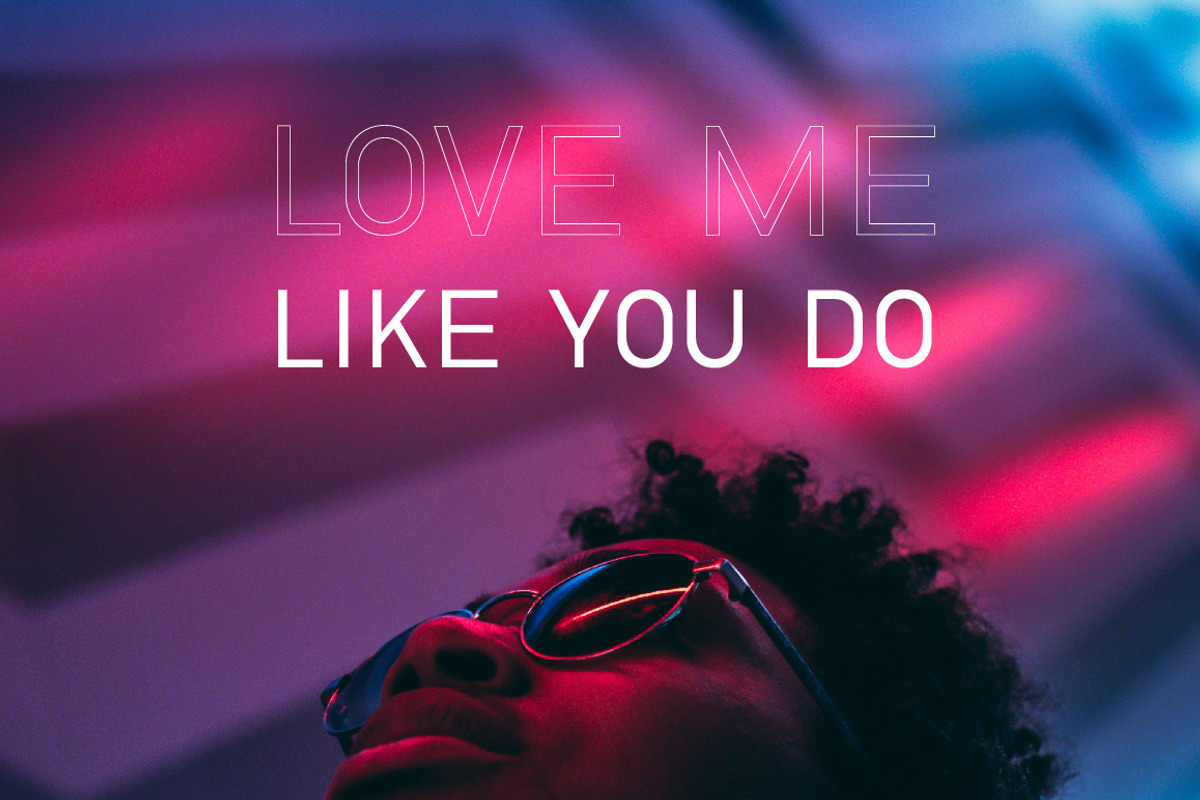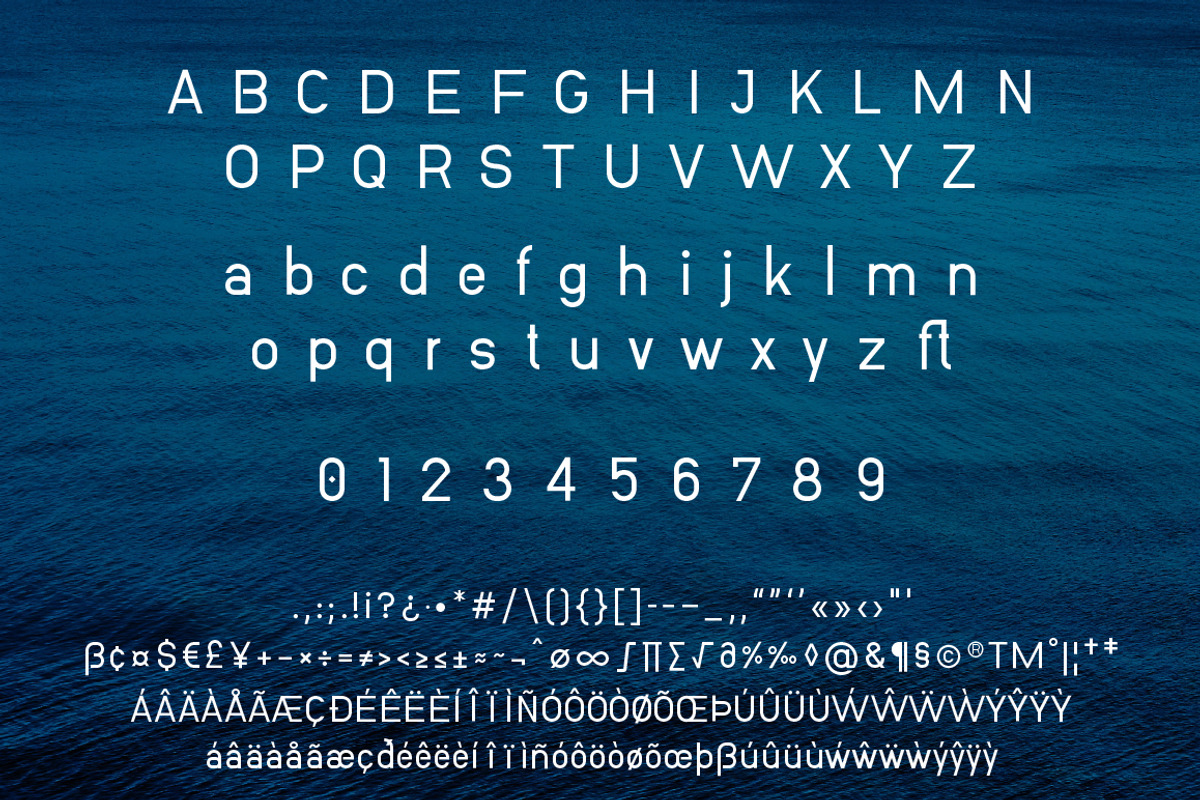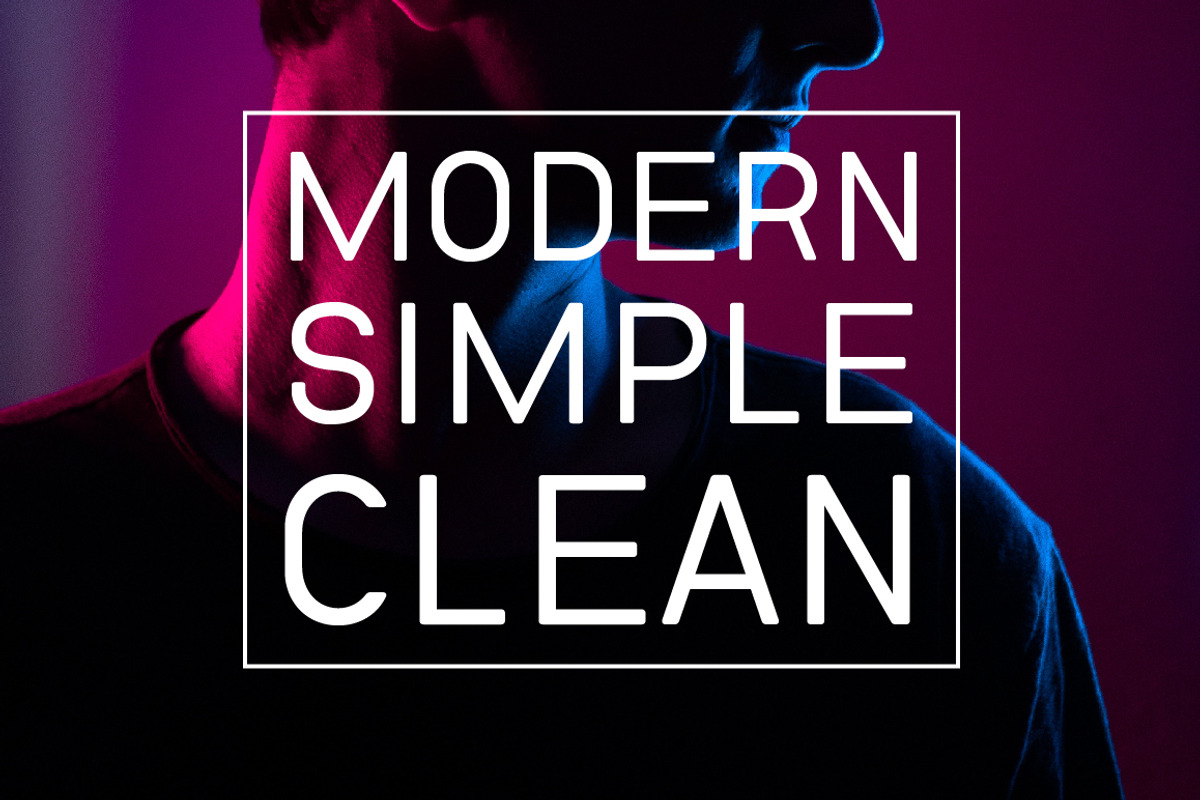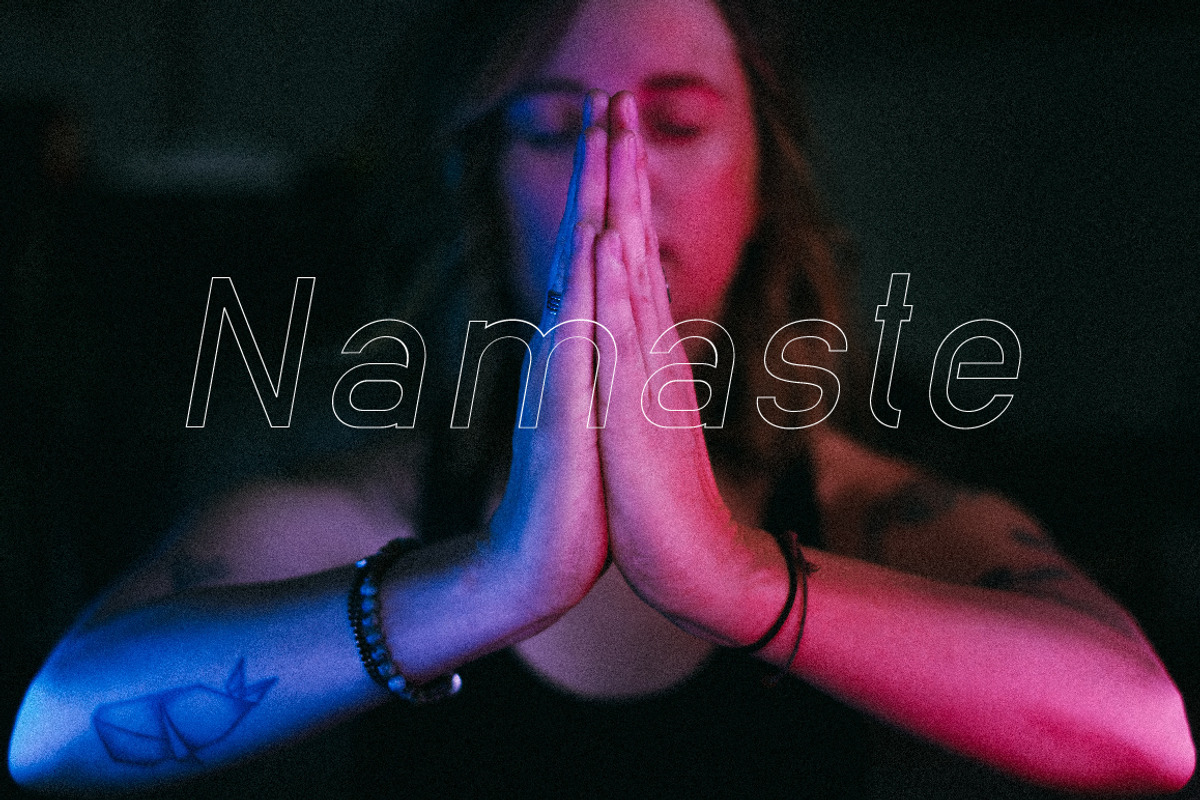
Wafterby Geometric Sans Serif Family
The Wafterby is a handsome sans serif typeface family. It comes in eight weights which have a minimal and clean feel. Its design is based on circle and line geometric shapes. It can be used as a cute minimal-style header display or as a stylish text for magazine, blog, corporate branding, packaging, wedding invitation project, etc.
- Standard English(A-Z, a-z)
- Western European supported
- Numbers(0-9) & punctuations
- Special ligature "ft"
- Unique omission "B" & "e"